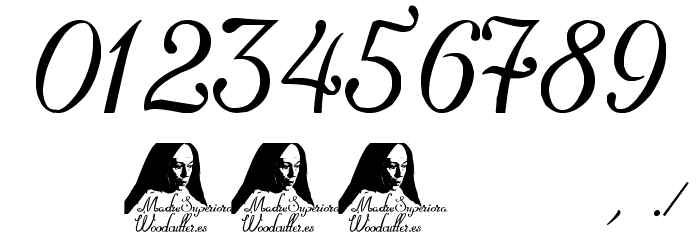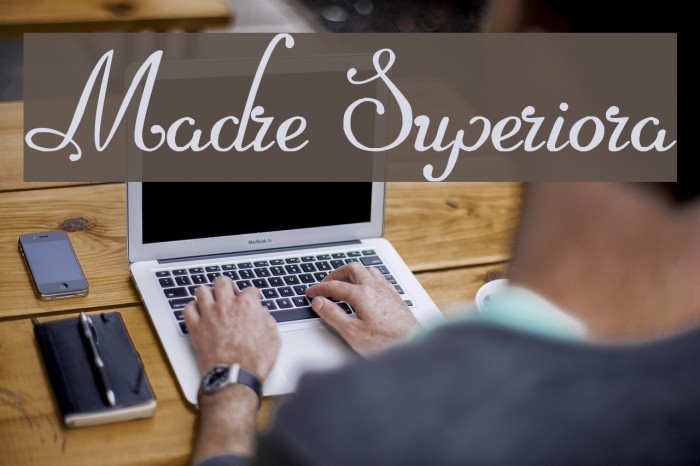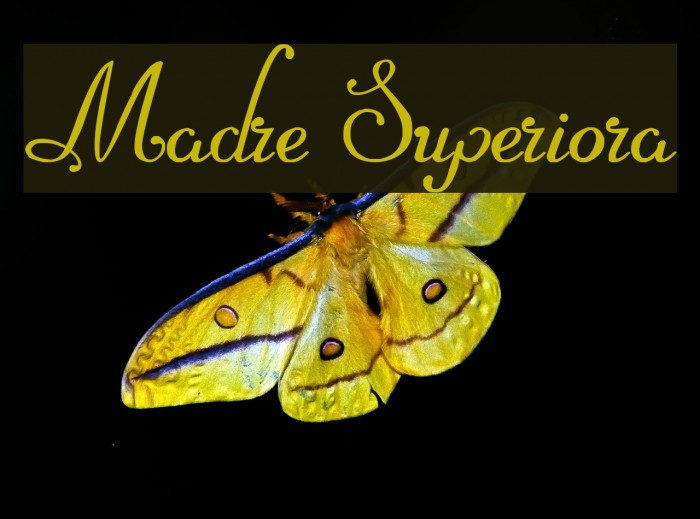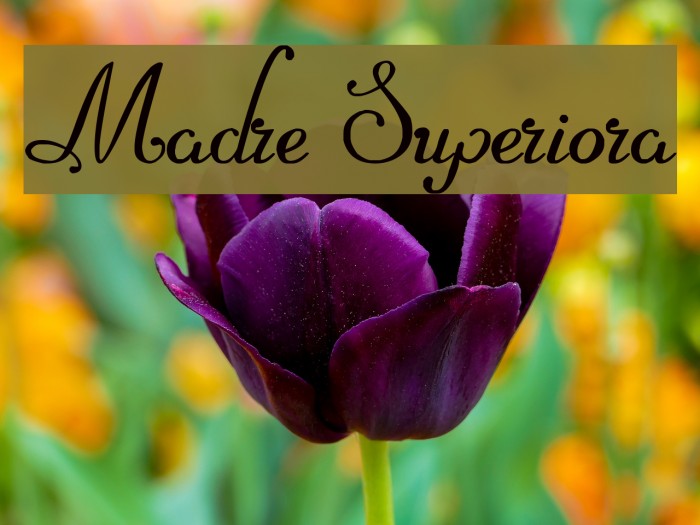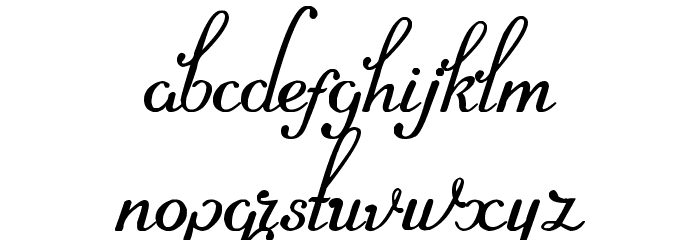
Madre Superiora Font
This font features an elegant and sophisticated script style, characterized by its flowing, cursive letterforms. The uppercase letters are ornate with intricate loops and swirls, giving a sense of grandeur and formality. The lowercase letters maintain a smooth, connected style that enhances readability while preserving the decorative nature. The numerals are distinct, with a slight slant that complements the overall script design. Special characters like the ampersand and question mark are crafted with the same attention to detail, adding to the font's cohesive appearance. This font is ideal for projects that require a touch of elegance and sophistication.
An elegant script font with ornate uppercase and smooth, connected lowercase letters.